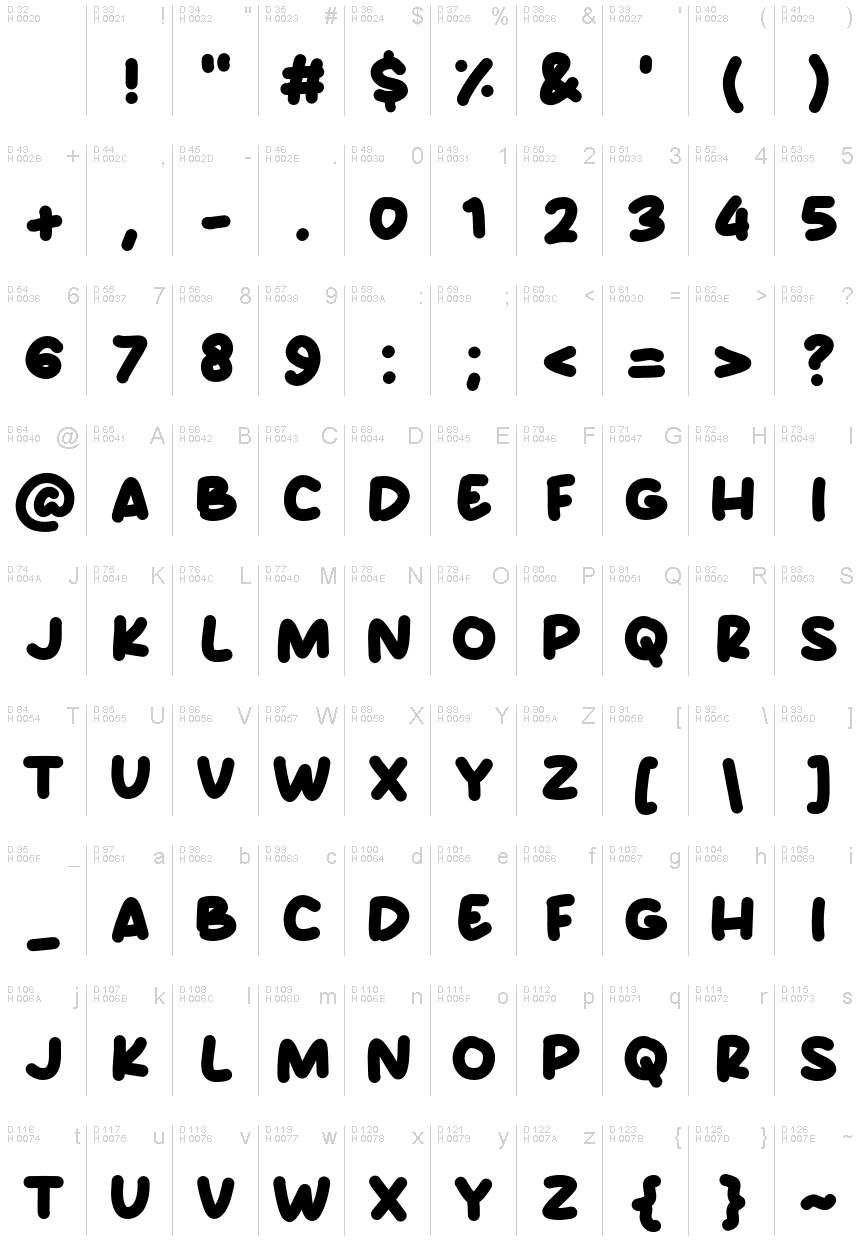
Beast Cake
Beast Cake font, crafted by MJType, is an exuberant handwritten style that stands out with its bold presence. This font exudes a playful and whimsical charm, characterized by its unique flourishes and engaging curves. The sweeping strokes and vibrant forms capture attention without feeling overwhelming, blending a sense of fun with artistic flair.
Visually captivating and versatile, Beast Cake shines in contexts ranging from festive event invitations to playful branding materials. Its distinctive personality makes it ideal for projects that call for creativity and warmth, ensuring a memorable impact in any design aesthetic. Whether used for headings or embellishments, this font promises to elevate the overall visual experience with its inviting character.